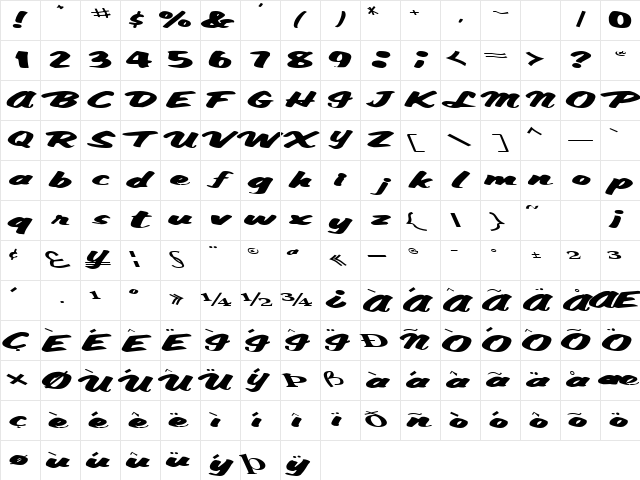
WaterMarkFont Regular
WaterMarkFont Family
Complete WaterMarkFont Regular glyph index. Displaying only characters natively supported by WaterMarkFont Regular font.
Design Context for WaterMarkFont
WaterMarkFont is a composed and adaptable typeface that performs quietly and consistently across a wide range of design contexts.